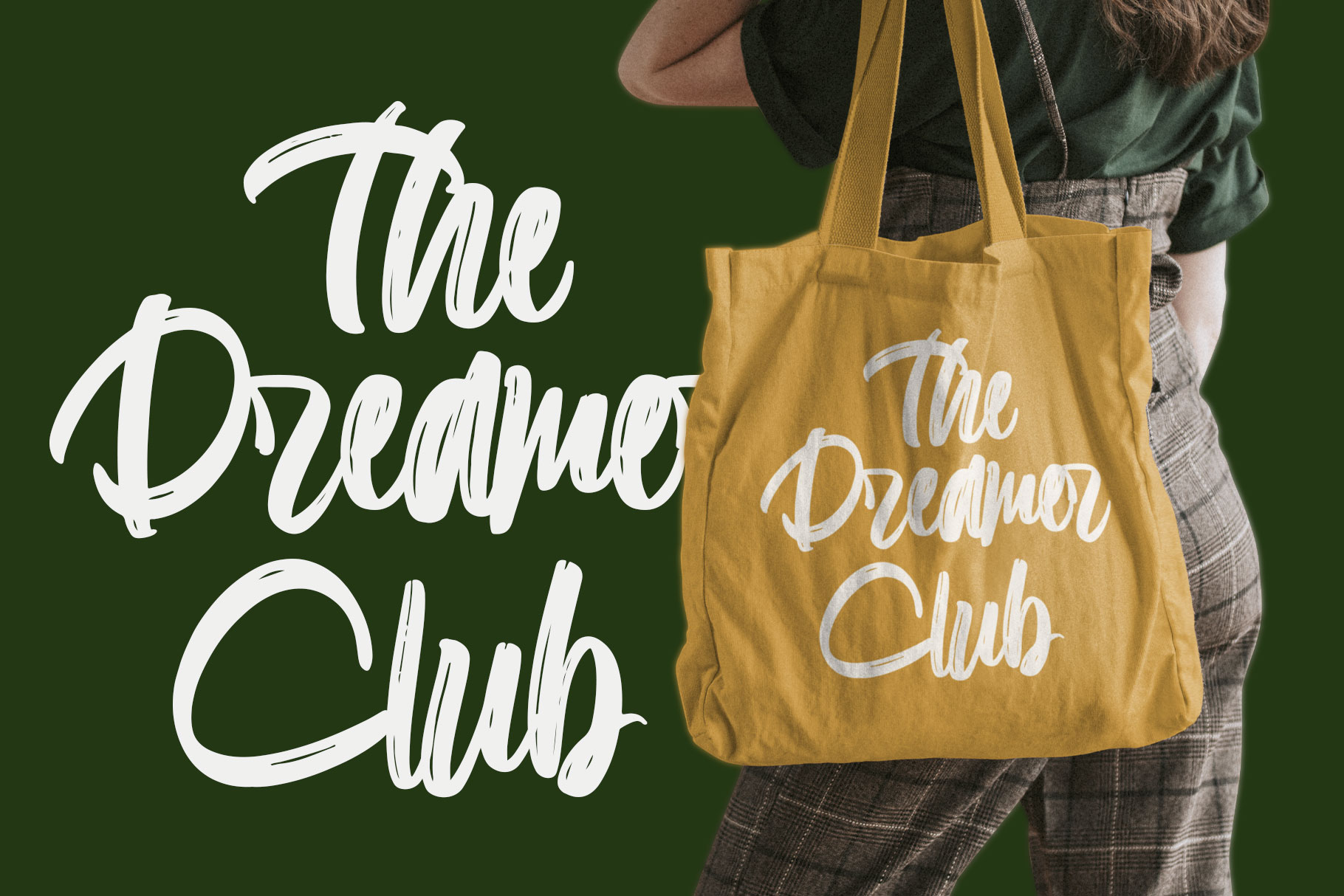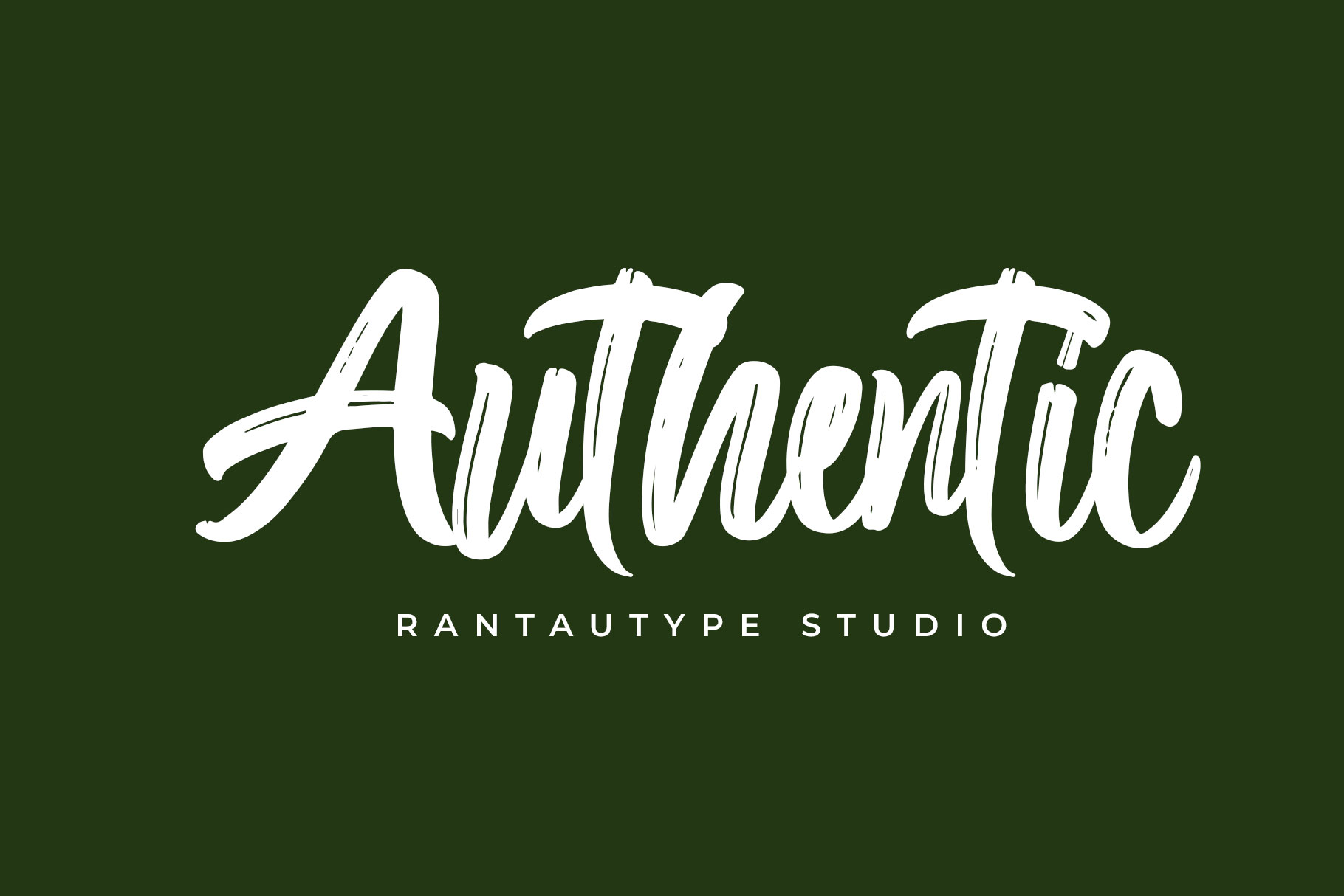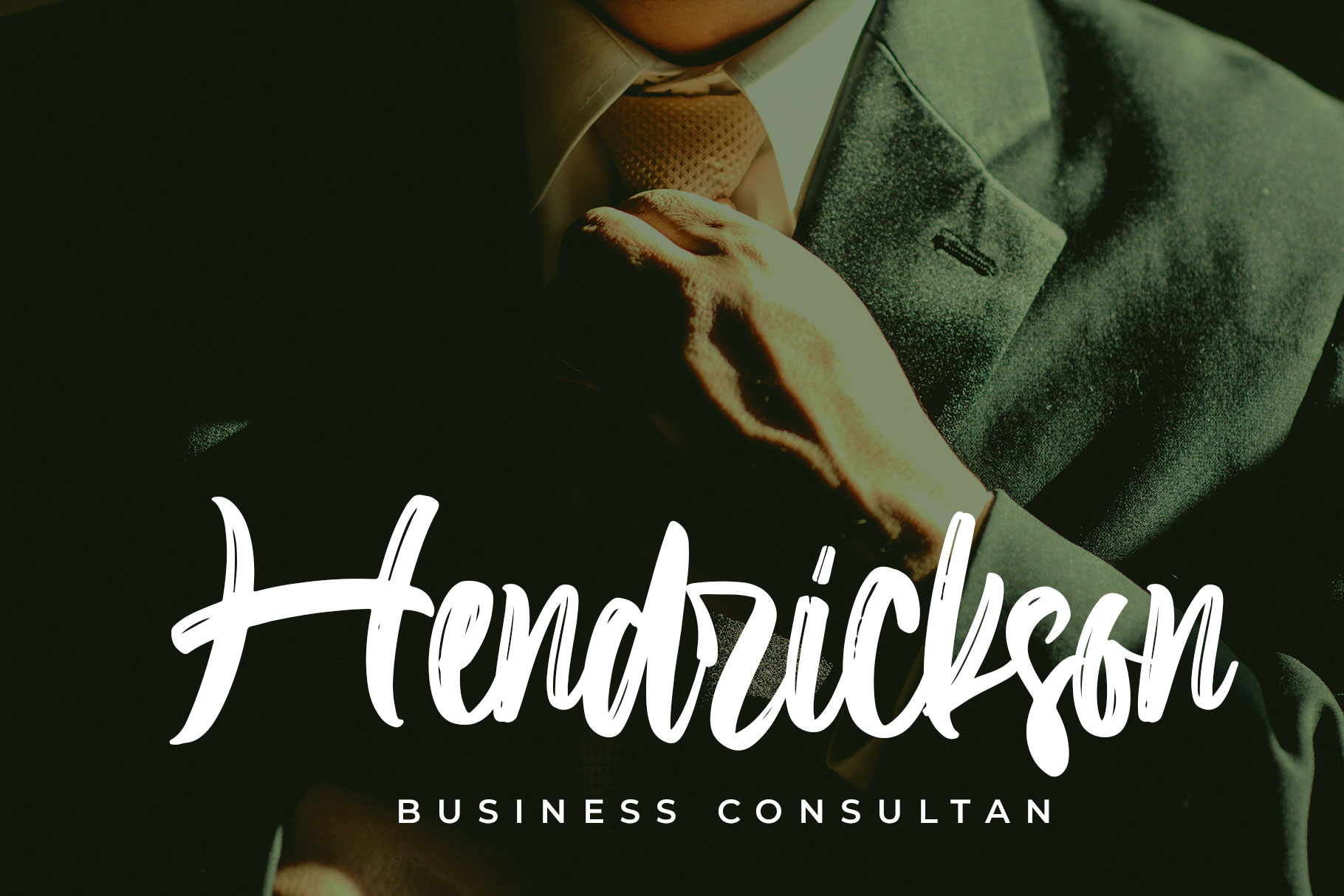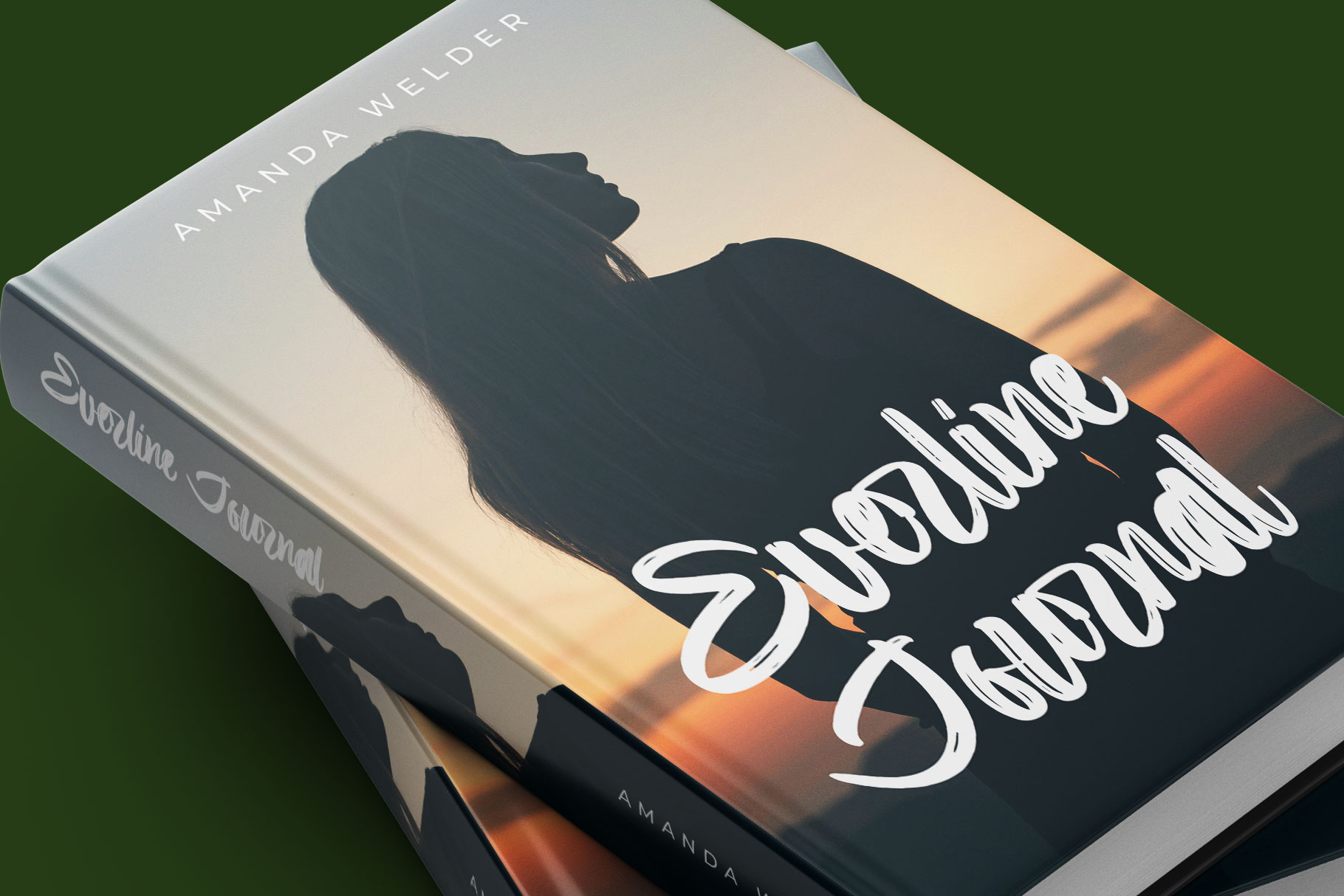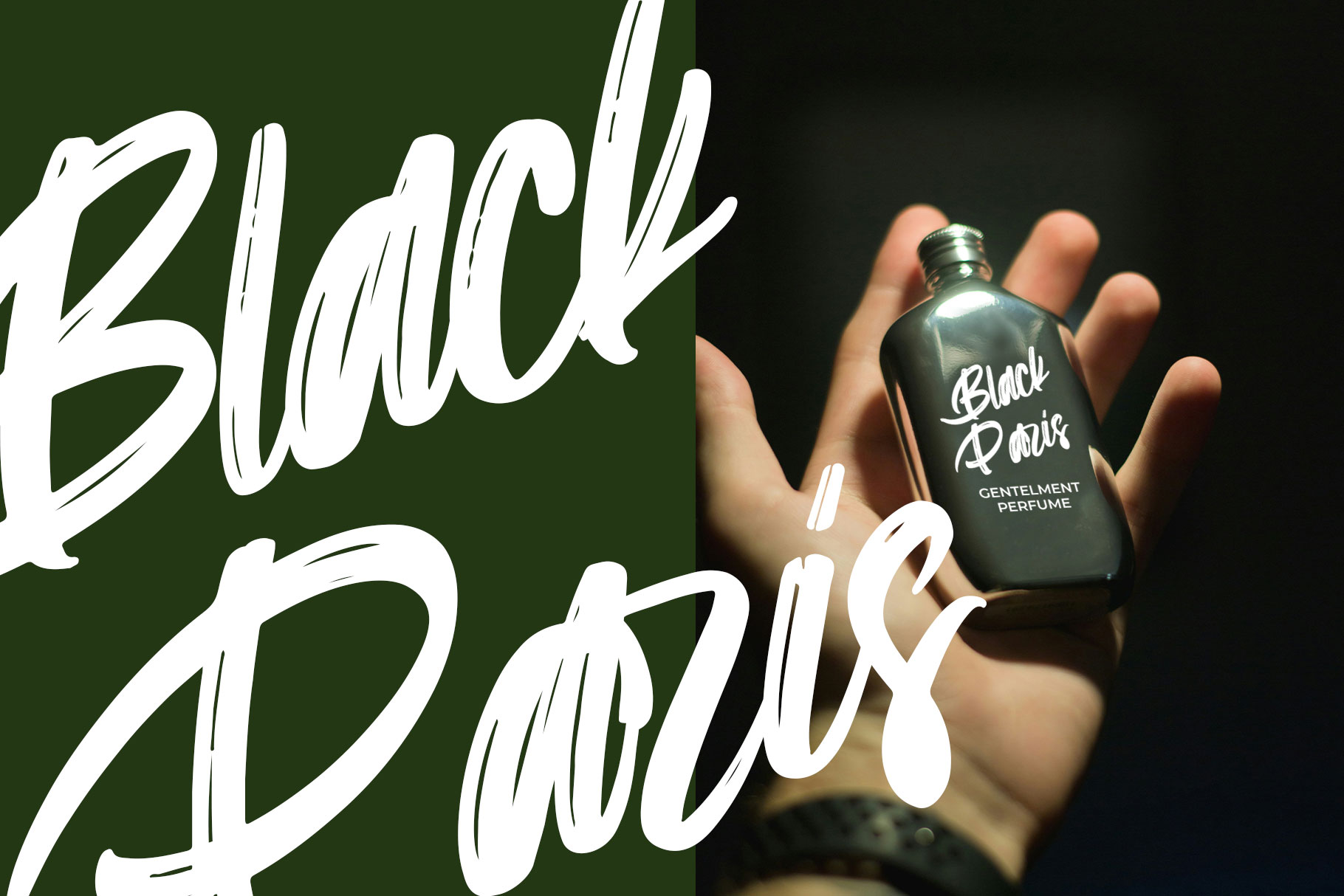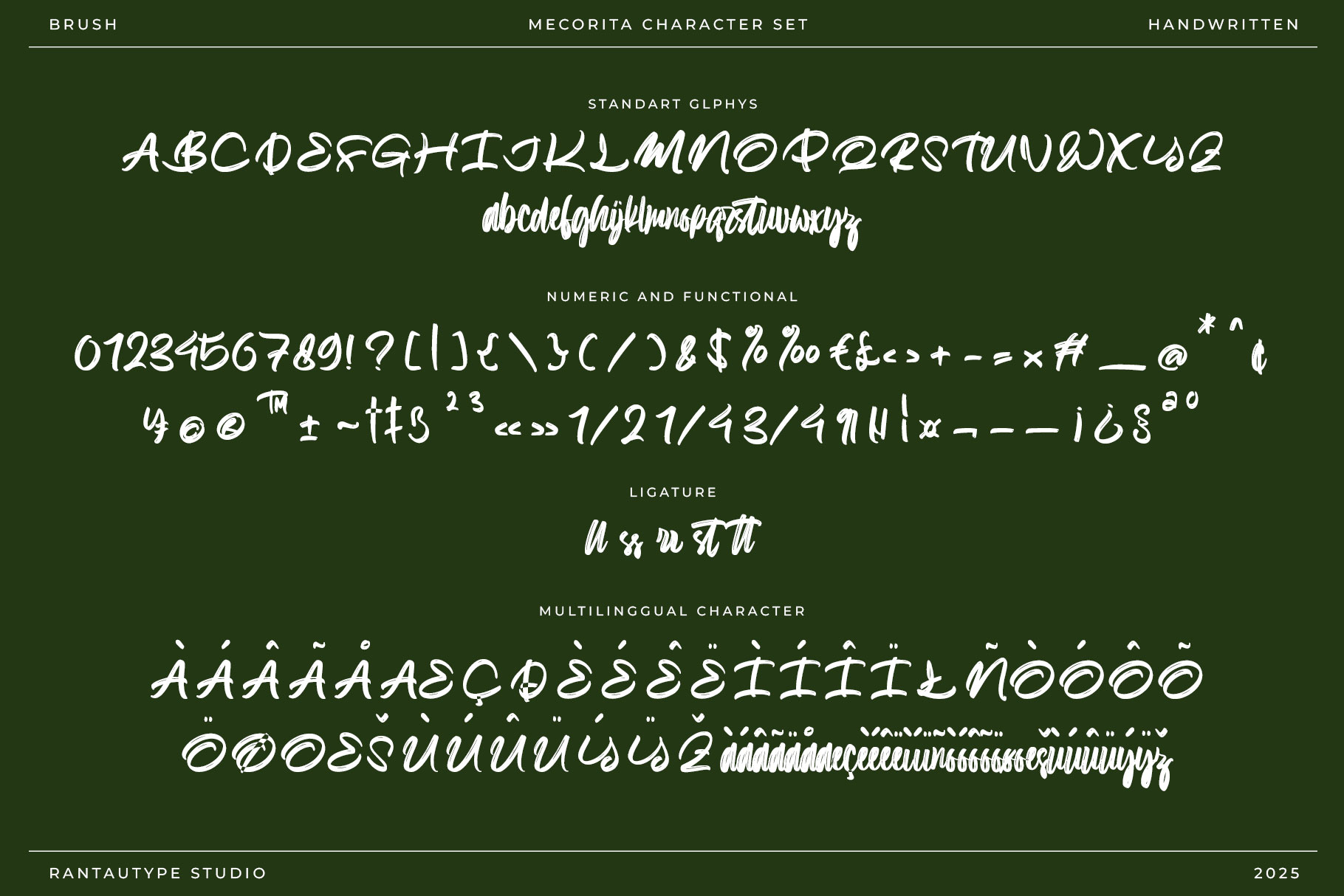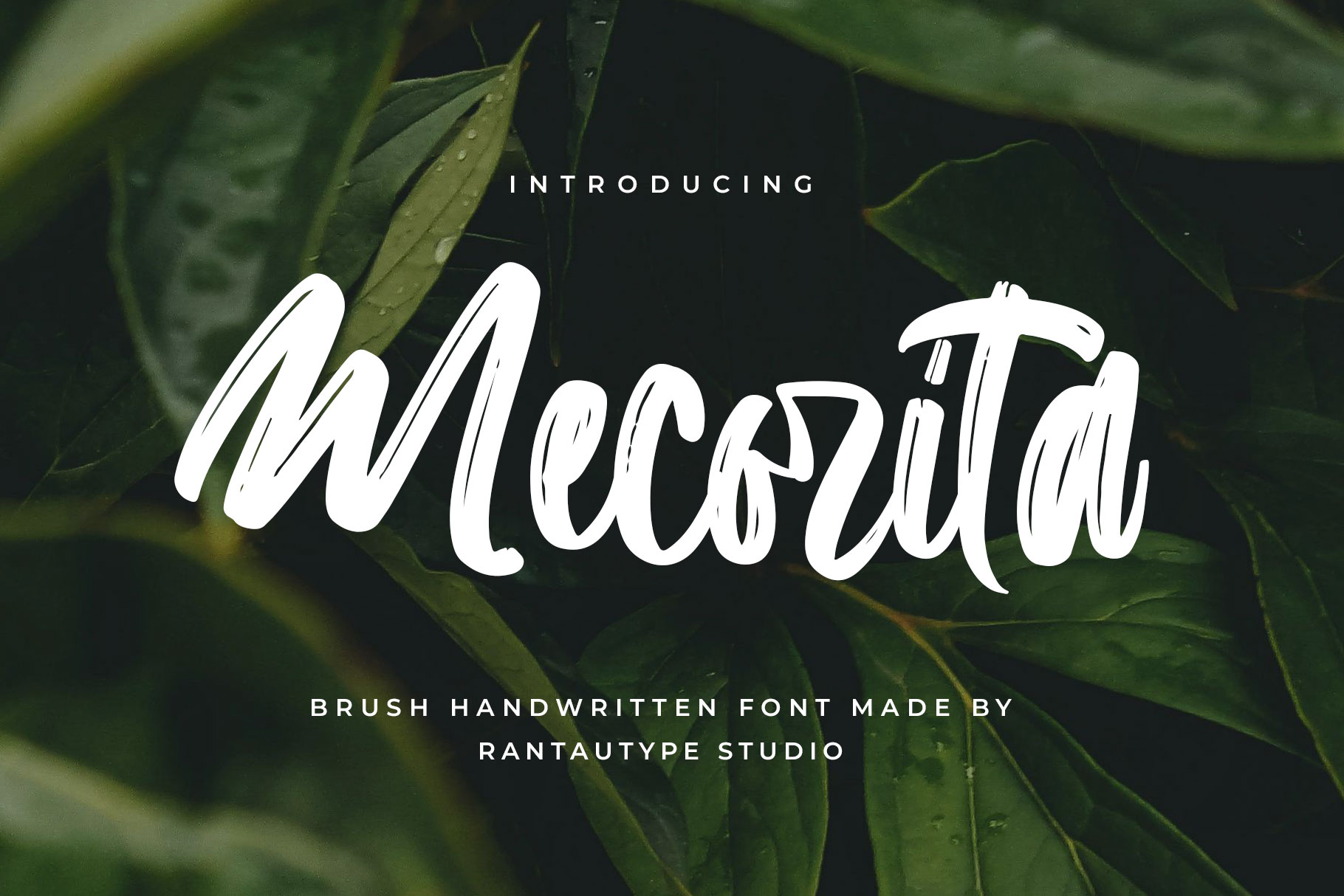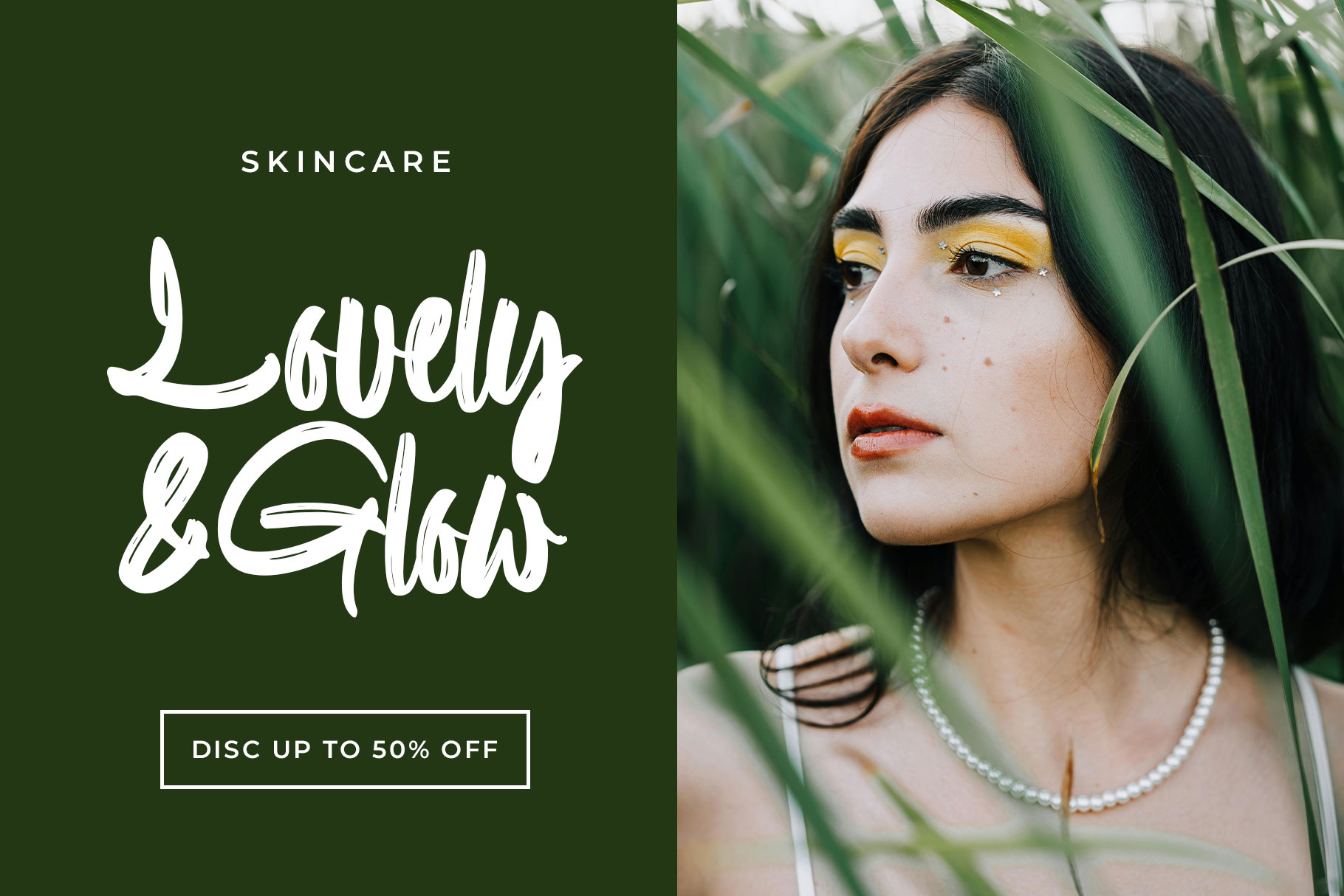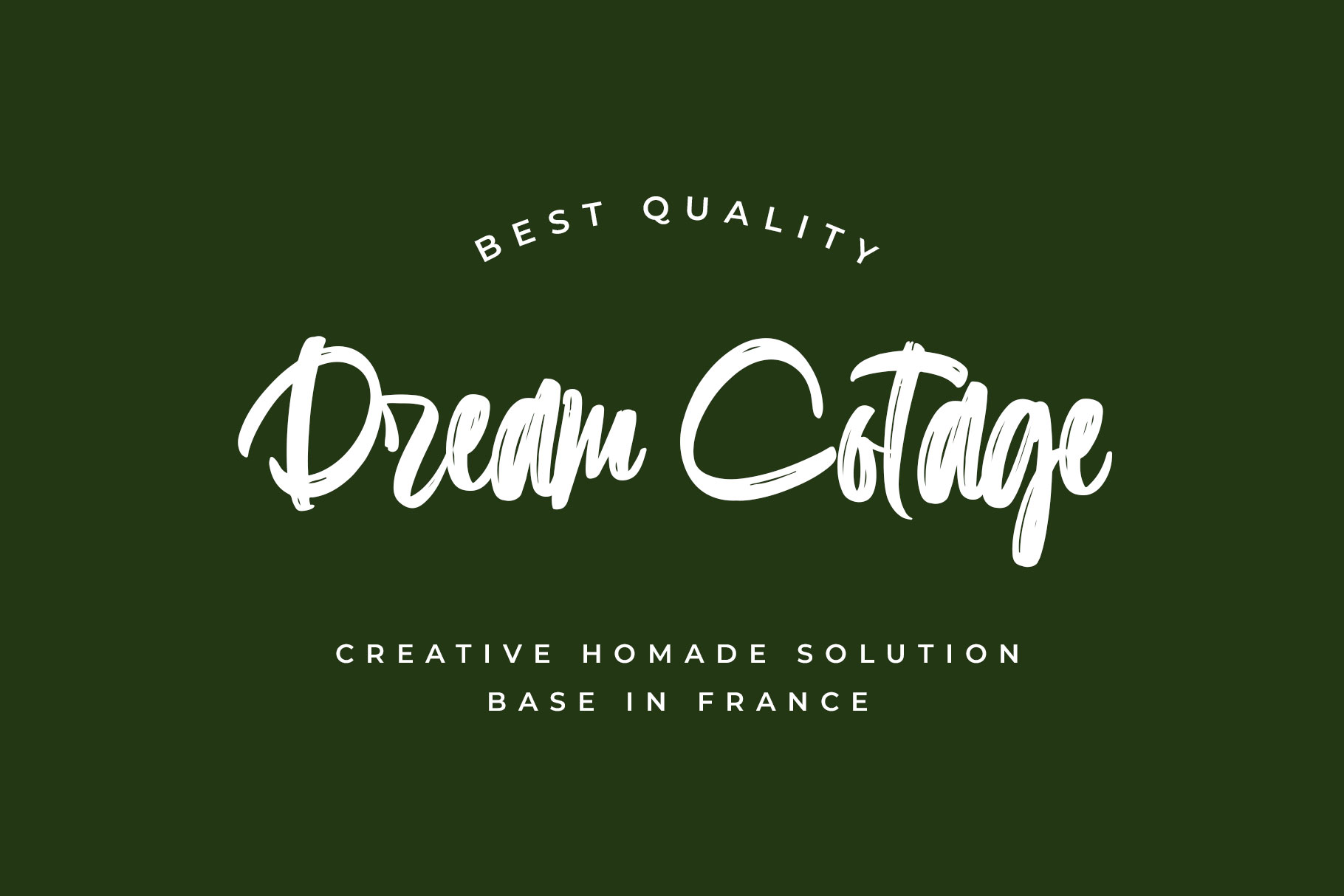
Mecorita Brush Handwritten Font
Mecorita is brush handwritten font with bold and stylish made by rantautype studio. Mecorita is a perfectly choice for any creative endeavor, creating, modern, lifestyle design such as logotype, title, cover, branding, invitations, wedding designs, display and magazine, social media posts, advertisements, printed quotes, product packaging, corporate brand, product designs, labels, photography, watermarks, special events and any other project with modern touch.